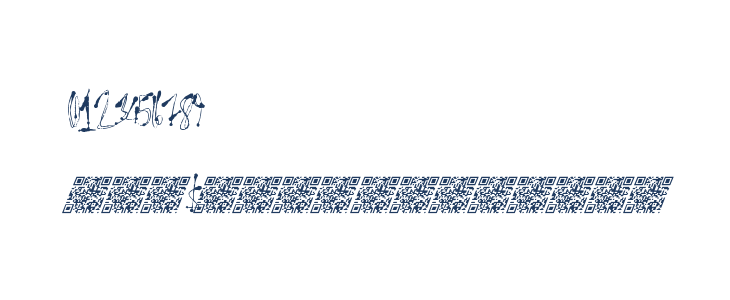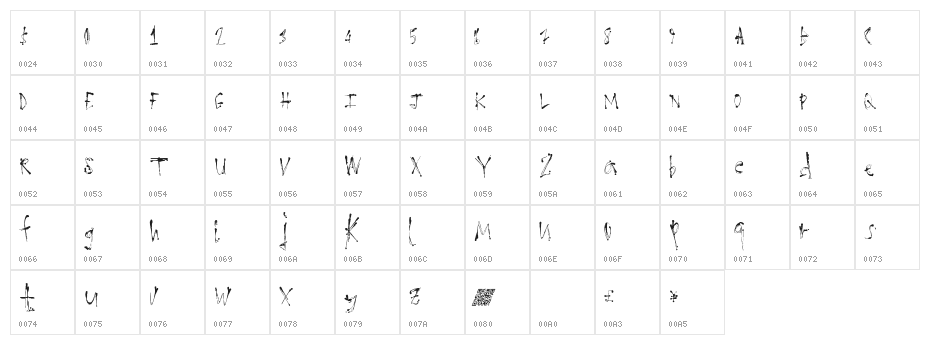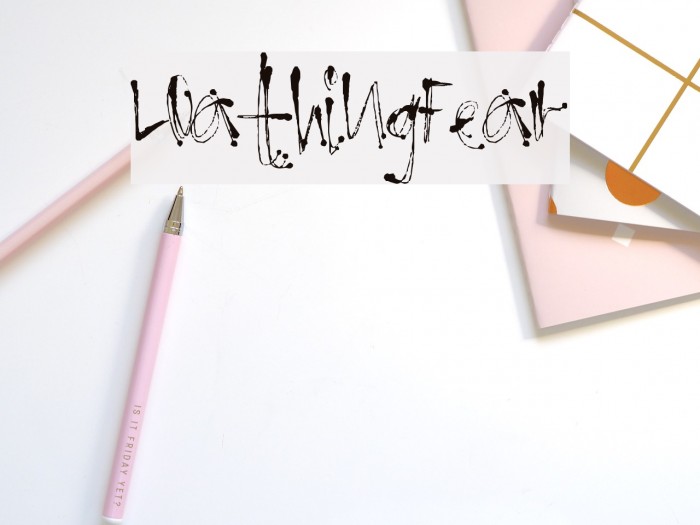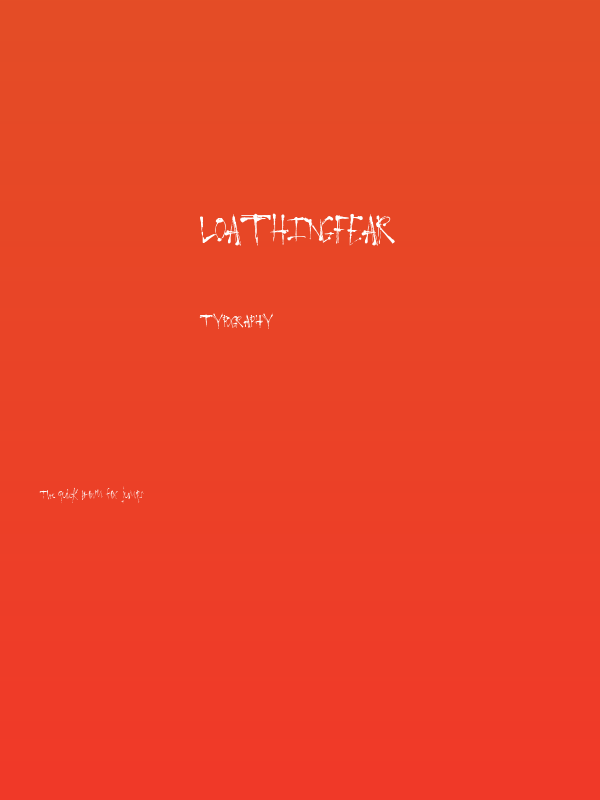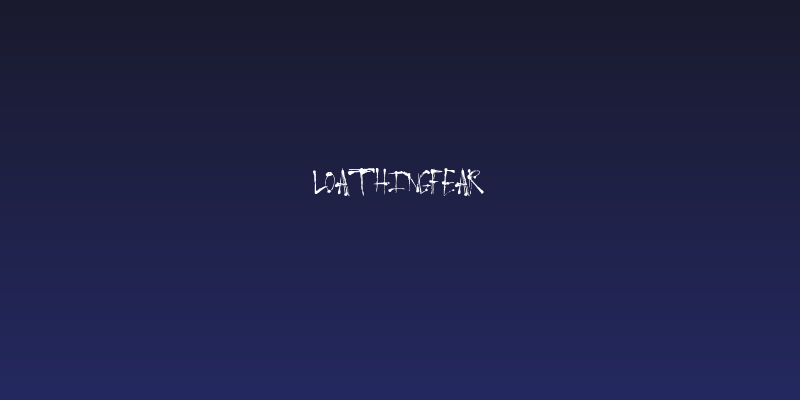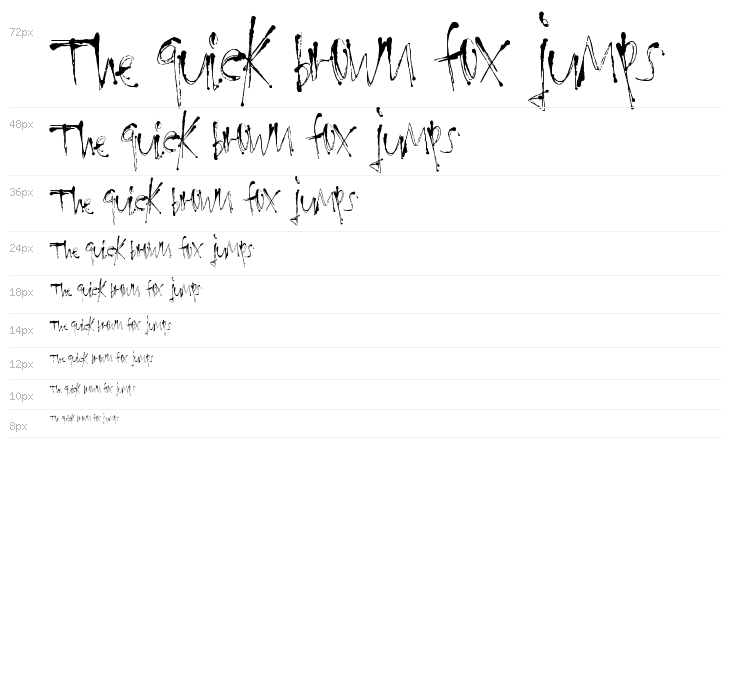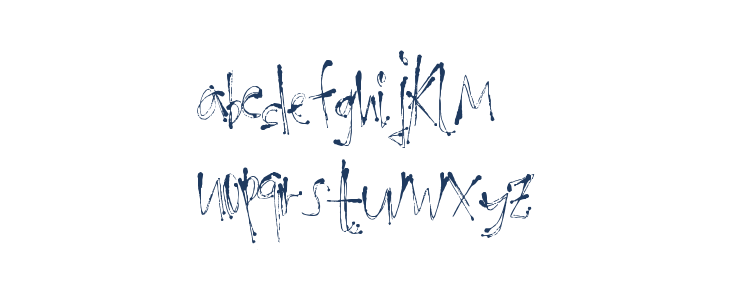
LoathingFear Font
LoathingFear Description
This font features a chaotic and distressed style, characterized by its irregular and jagged strokes. The letters appear as if they are hand-drawn with a rough brush, giving a sense of urgency and raw emotion. The uppercase and lowercase characters maintain a consistent level of distortion, with some letters featuring exaggerated loops and angles. The numbers and special characters follow the same distressed aesthetic, adding to the overall gritty appearance. This font is ideal for projects that require a dramatic and edgy look, such as horror-themed designs or rebellious branding.
| Use Case | Logos, Posters, Album covers |
| Proposed Projects | Ideal for horror-themed designs, rebellious branding, album covers, and edgy posters. |